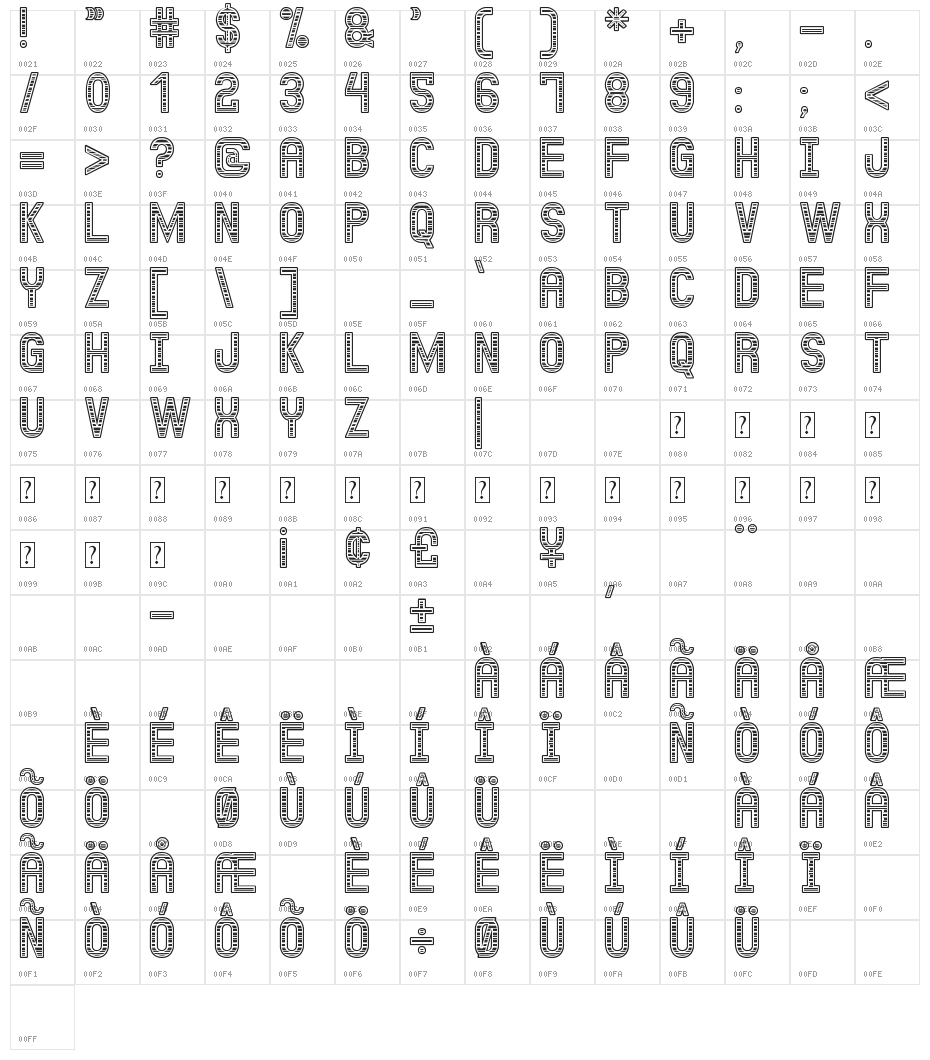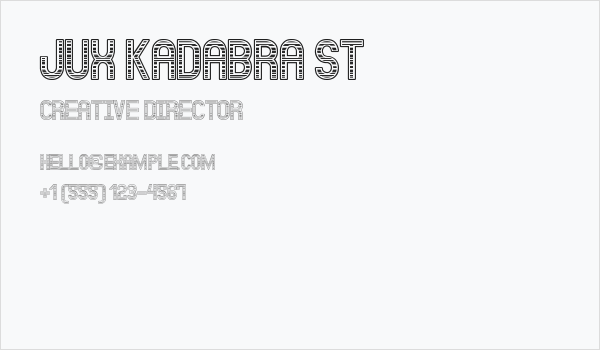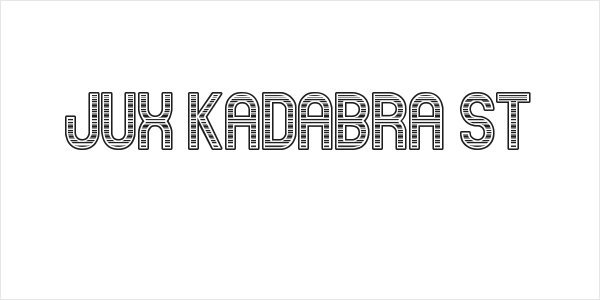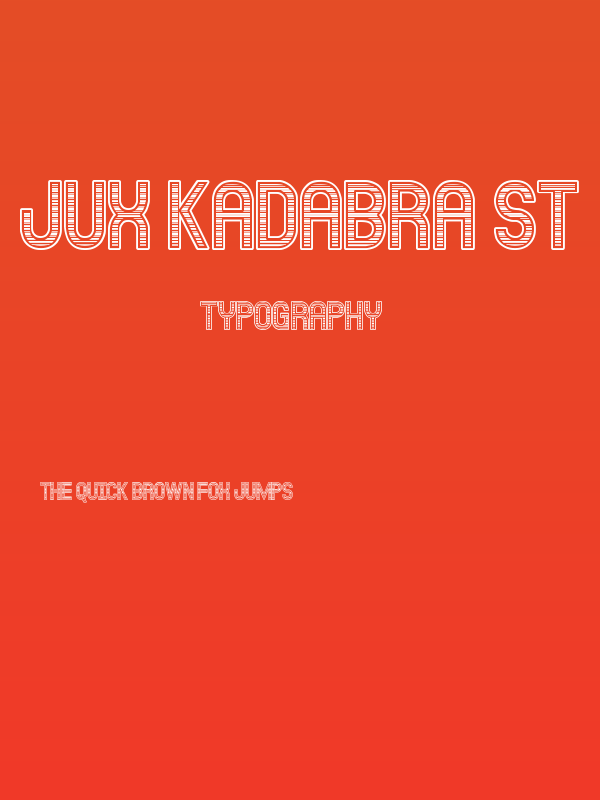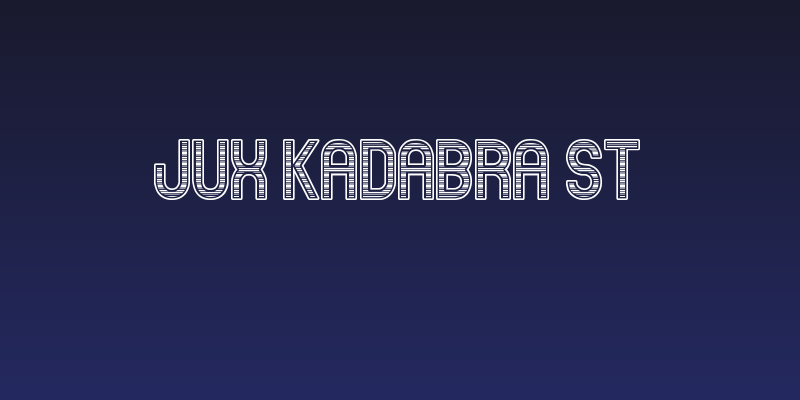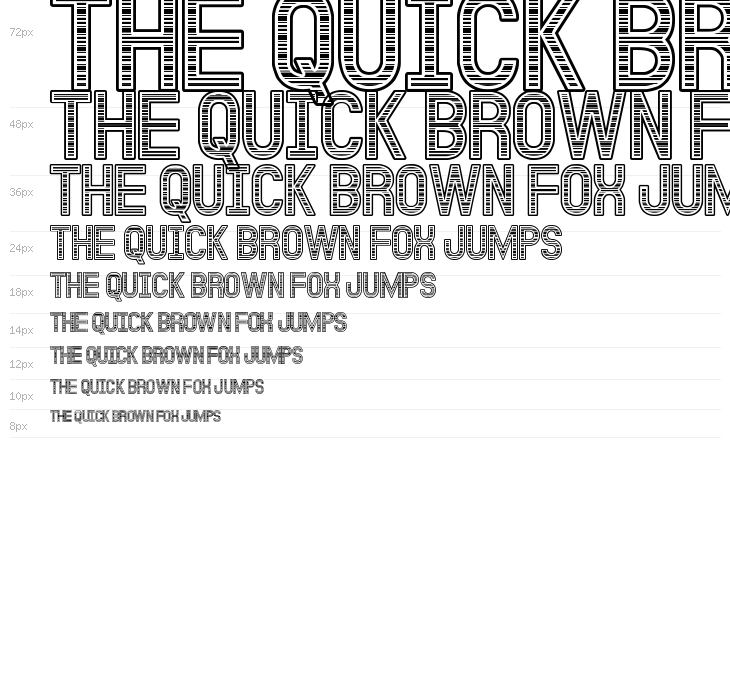
Jux Kadabra St Font
Jux Kadabra St Description
This font features a bold, decorative style with a striped pattern running through each character, giving it a unique and eye-catching appearance. The uppercase and lowercase letters maintain a consistent width, creating a uniform look across the board. The numerals and special characters follow the same design, ensuring cohesion throughout the typeface. The font's geometric structure and clean lines make it suitable for modern designs, while the decorative elements add a touch of playfulness and creativity. Its high contrast and distinct style make it ideal for projects that require a strong visual impact.
Proposed ProjectsIdeal for posters, logos, headlines, and any design needing a bold statement.